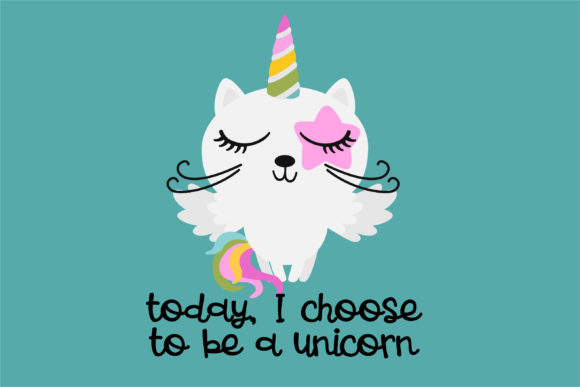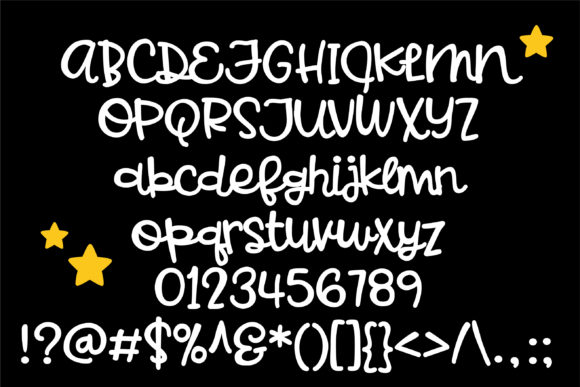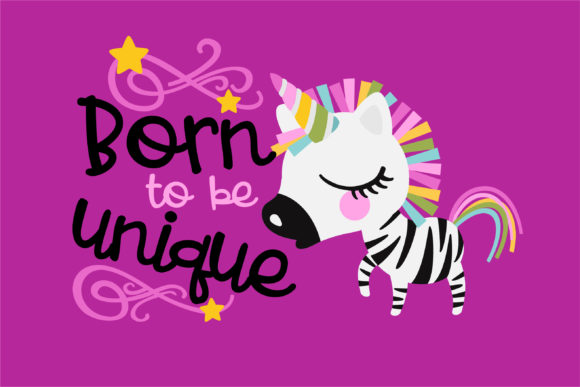
HomeScript FontsEager to Please Font Script Fonts Eager to Please Font FacebookXPinterestWhatsApp Eager to Please Font Poster 2 Eager to Please Font Poster 3 Eager to Please Font Poster 4 Eager to Please Font Poster 5 About Eager to Please Font This casual hand-crafted quasi-script, has stiffly, upright lettering and a whimsical feel to it. DOWNLOAD NOW People also explored Norack Font Beside Font The Signature Font Thriller Bark Font Conelly Font Christmas Glee Font Dartisia Font Kill the Lights Font Rebutter Font 271 0 TagsEager to Please Font Previous articlePomegranate Juice FontNext articleZebra Font LEAVE A REPLY Cancel reply Comment: Please enter your comment! Name:* Please enter your name here Email:* You have entered an incorrect email address! Please enter your email address here Website: Save my name, email, and website in this browser for the next time I comment. Personal Use Free Amellis Path Personal Use Free Read more about this font Zeshane Personal Use Free Read more about this font Cloudy Night Personal Use Free Read more about this font The Lima Personal Use Free Read more about this font BLOG Free Fonts Risk: Why Free Fonts Can Be Dangerous for Designers Free Fonts Risk: Why Free Fonts Can Be Dangerous for Designers Using free fonts is a common practice in web and graphic design. However, the... Best Fonts for YouTube Videos: Make Your Thumbnails Stand Out Free vs Paid Fonts: Why Investing in Premium Fonts Is Worth It Transform Your Website: Elevate Your Typography with 7 Best Web Font Generators